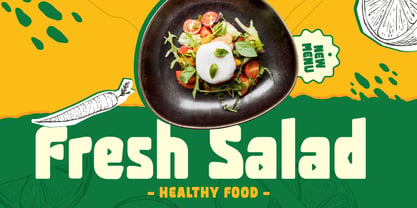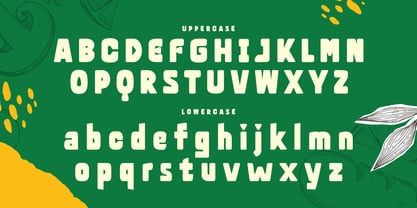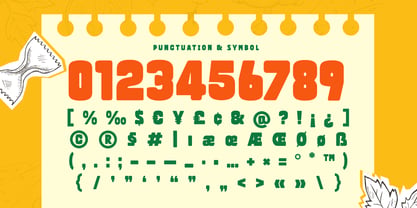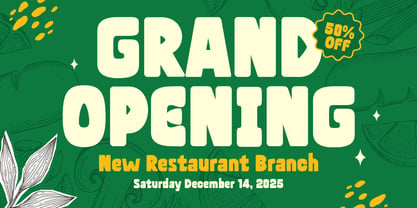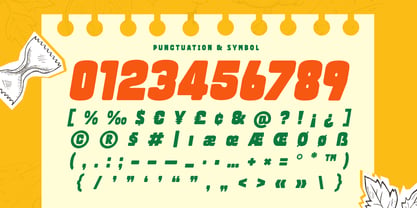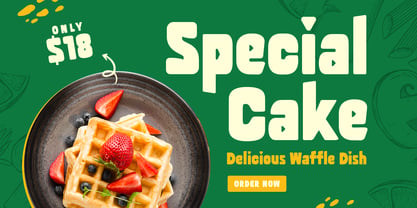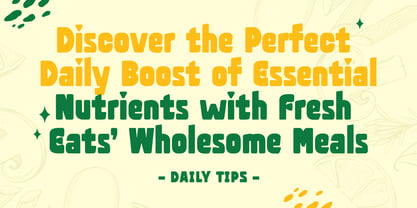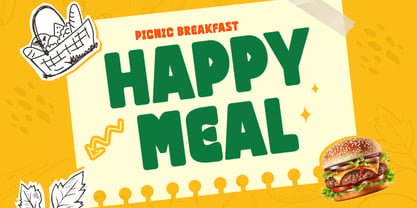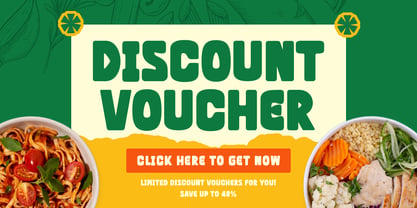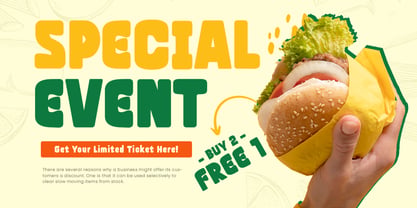
Meals SS
La familia tipográfica Meals SS fue diseñada por Zamroni Hamzah y publicada por Sensatype Studio. Meals SS contiene 2 estilos y opciones de paquete familiar. Más información sobre esta familia
Meals SS is a bold food font designed to make your culinary designs pop. Inspired by the vibrant and dynamic world of food, Meals SS combines boldness with a playful touch to create a font that's perfect for menus, restaurant branding, and any food-related design projects. Whether you're crafting an eye-catching menu, designing a logo for a gourmet restaurant, or creating delicious branding materials, Meals SS delivers the perfect blend of style and flavor.
The Story Behind Meals:
Meals SS was born from a love of food and design. The font captures the essence of culinary creativity and the joy of eating. Designed to be both bold and approachable, Meals SS is perfect for any project that needs to convey a sense of taste, fun, and excitement. From cafes and bistros to gourmet restaurants and food trucks, Meals SS is the go-to font for all things food-related.
Meals SS Font Features:
• Bold Design: Perfect for making your menus and food branding stand out.
• Versatile Usage: Ideal for restaurant logos, menus, packaging, and culinary designs.
• High Legibility: Ensures your text is easy to read, even from a distance.
• Playful Touch: Adds a fun and inviting feel to your food-related projects.
• Inspirational Previews: Includes sample designs to show the font's potential and inspire your creativity.
Elevate your culinary designs with Meals SS and bring a bold, flavorful touch to your work.